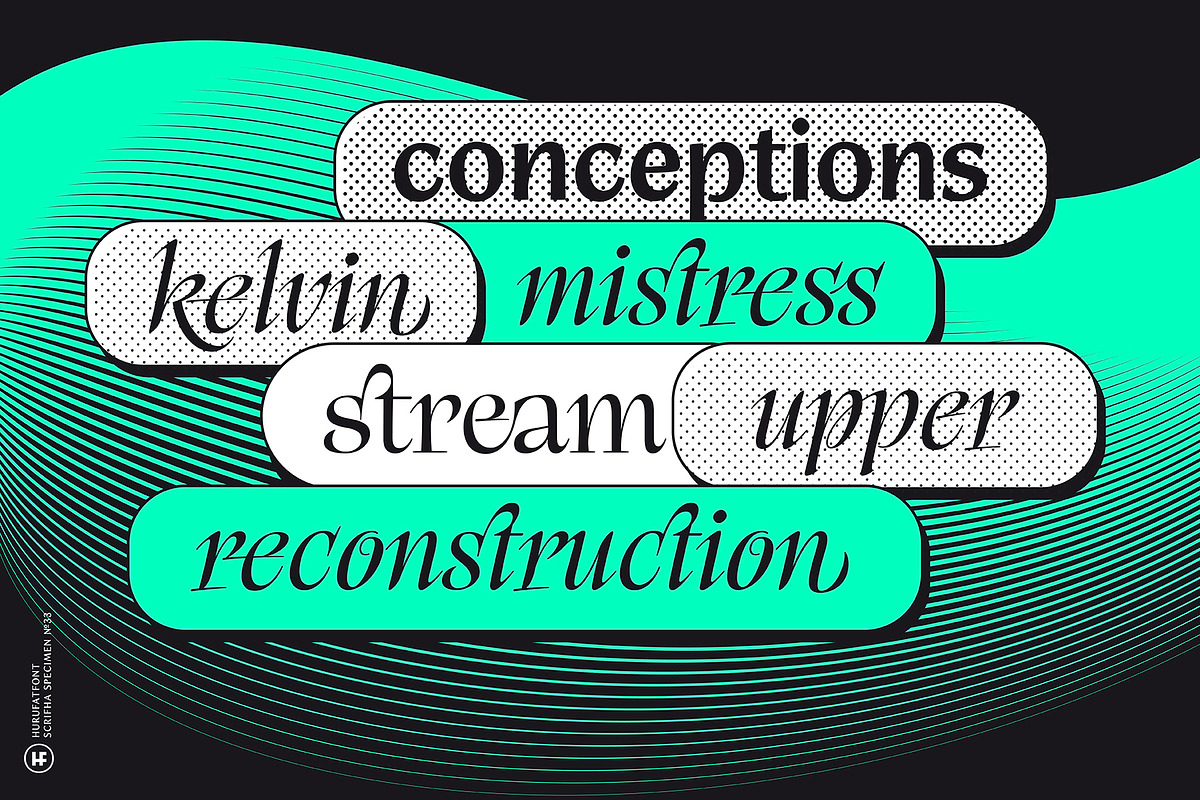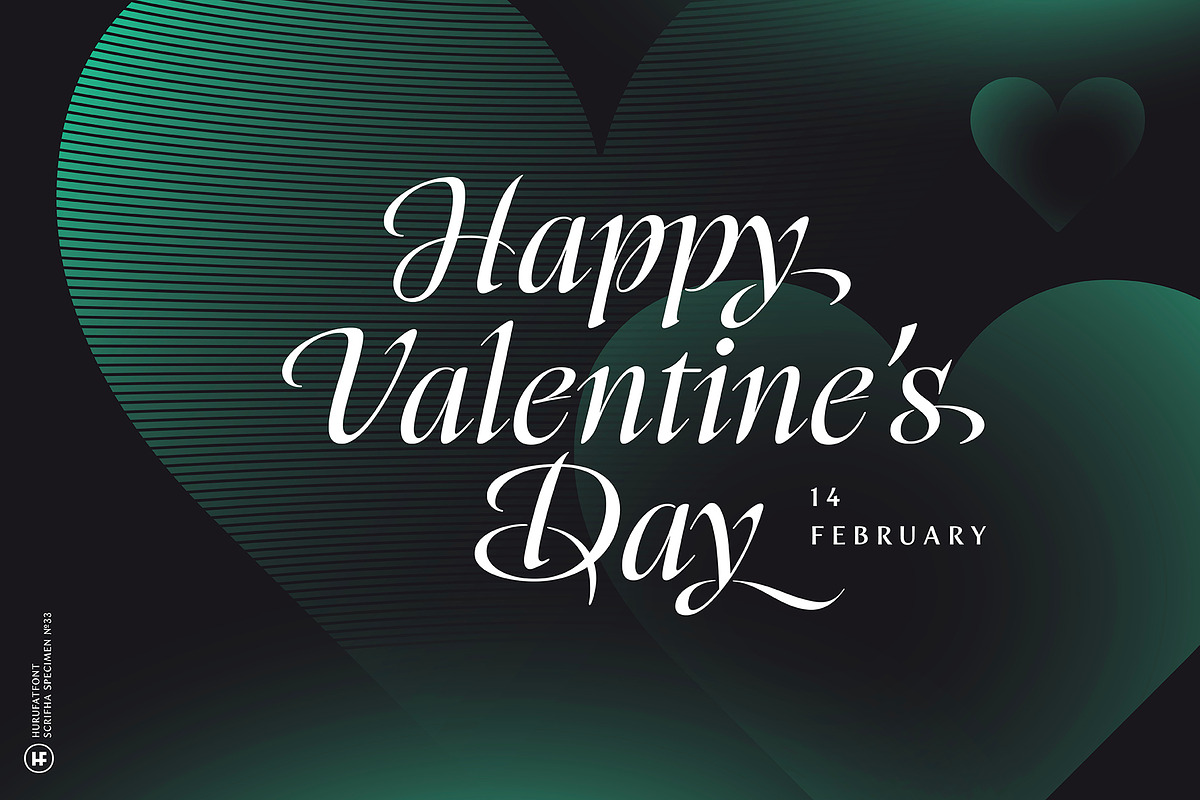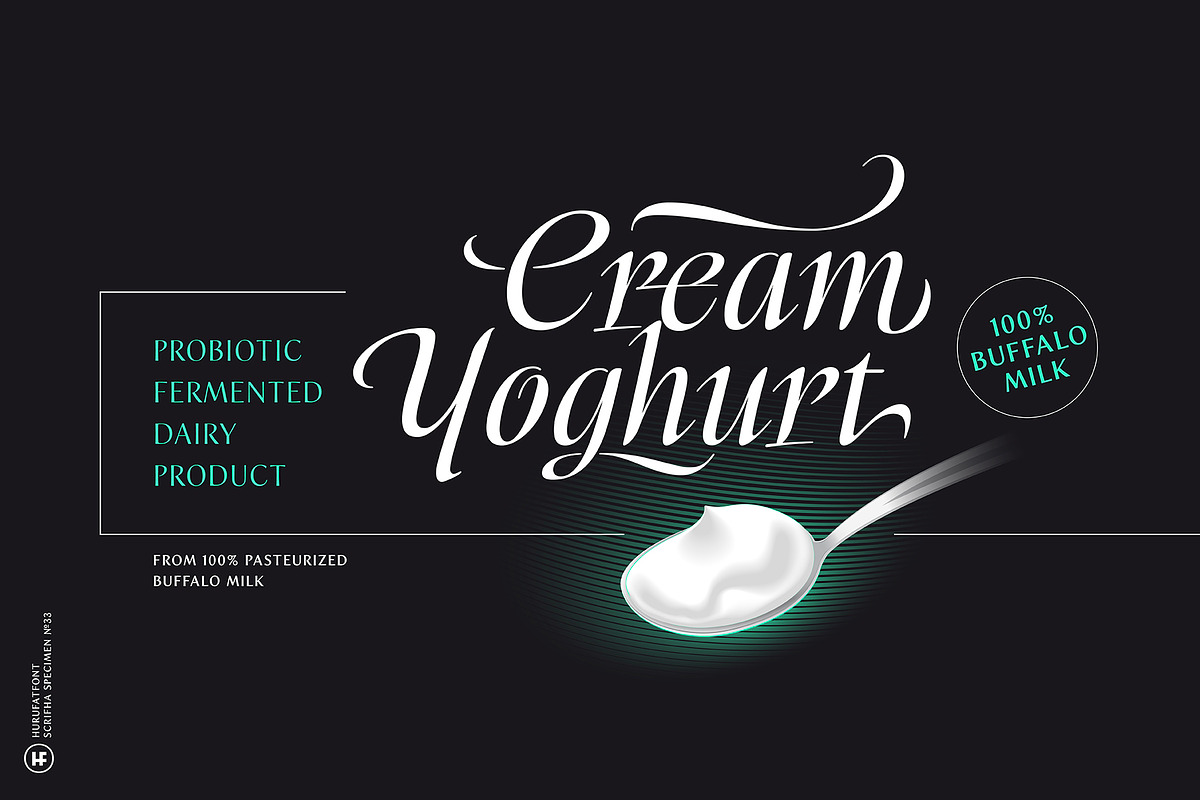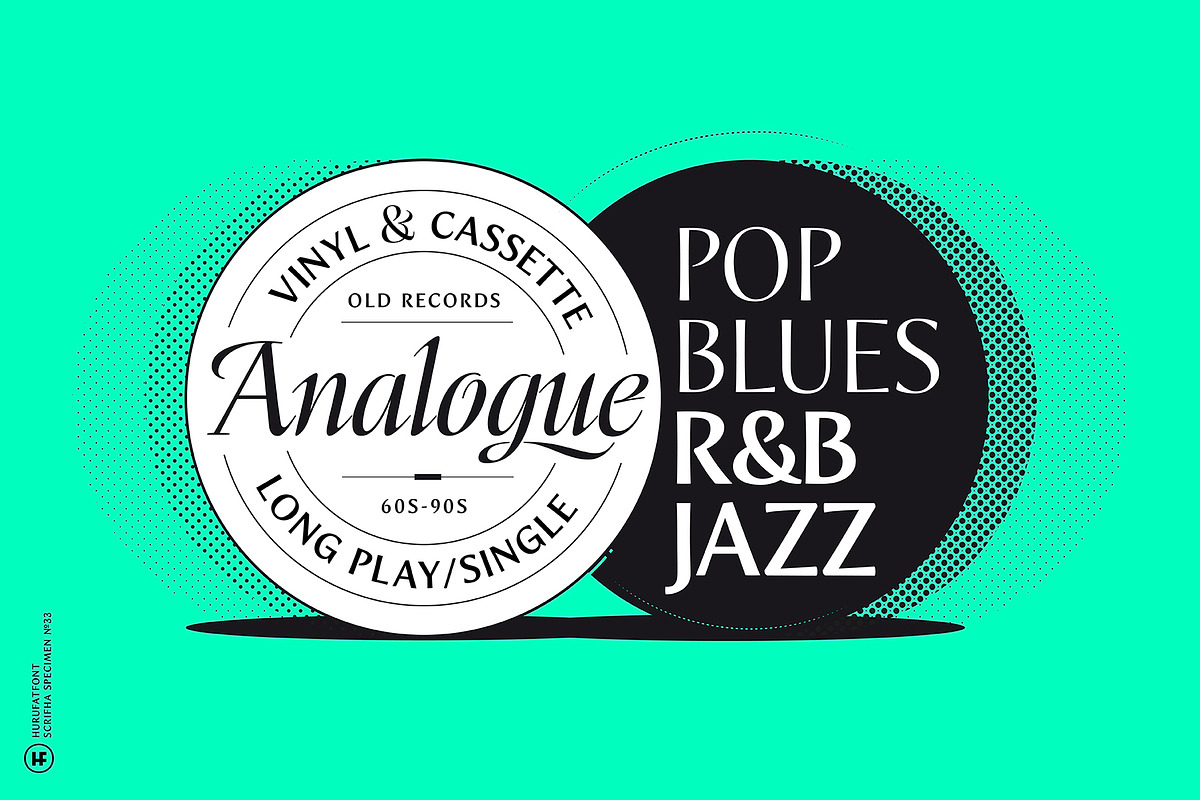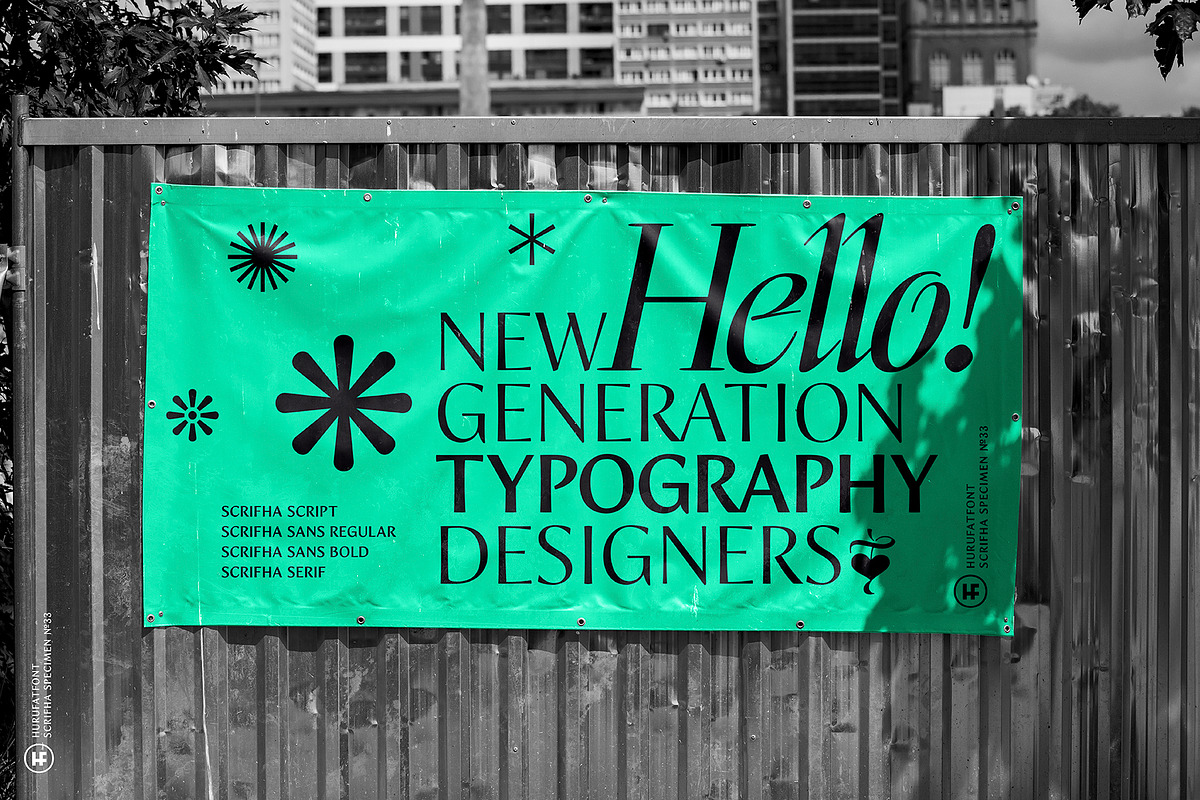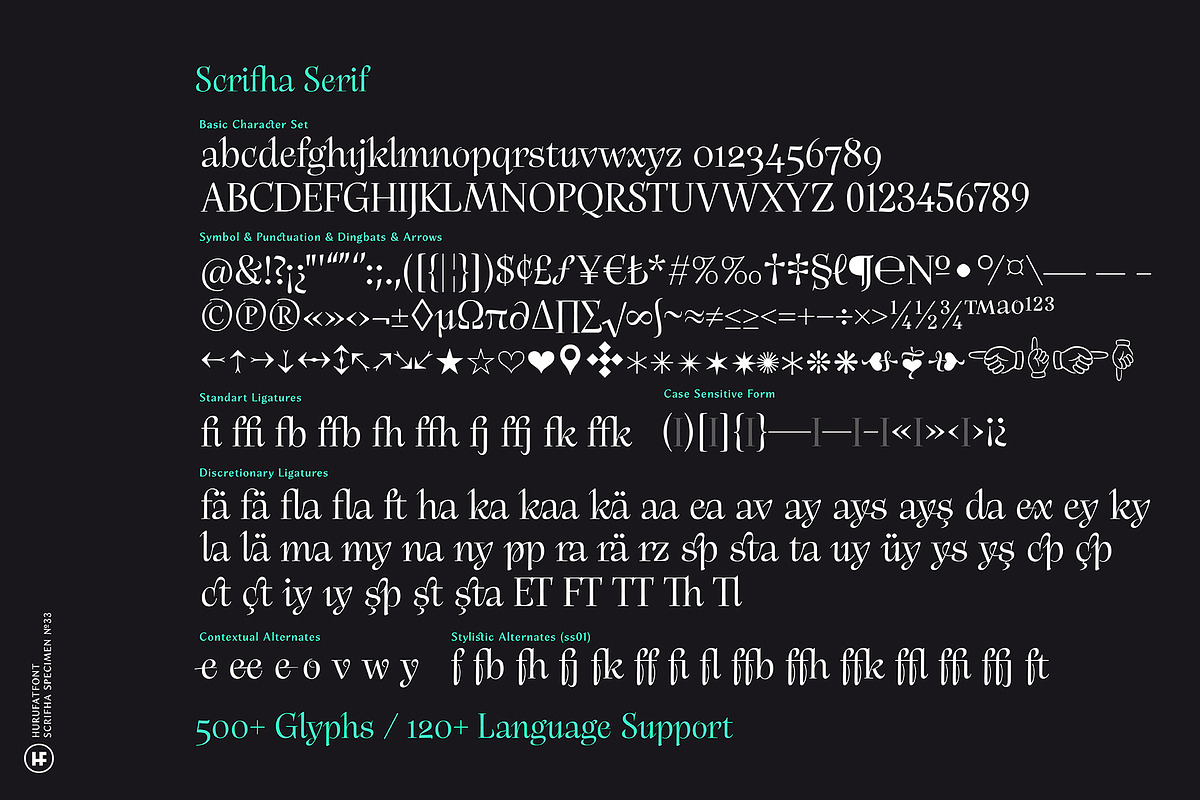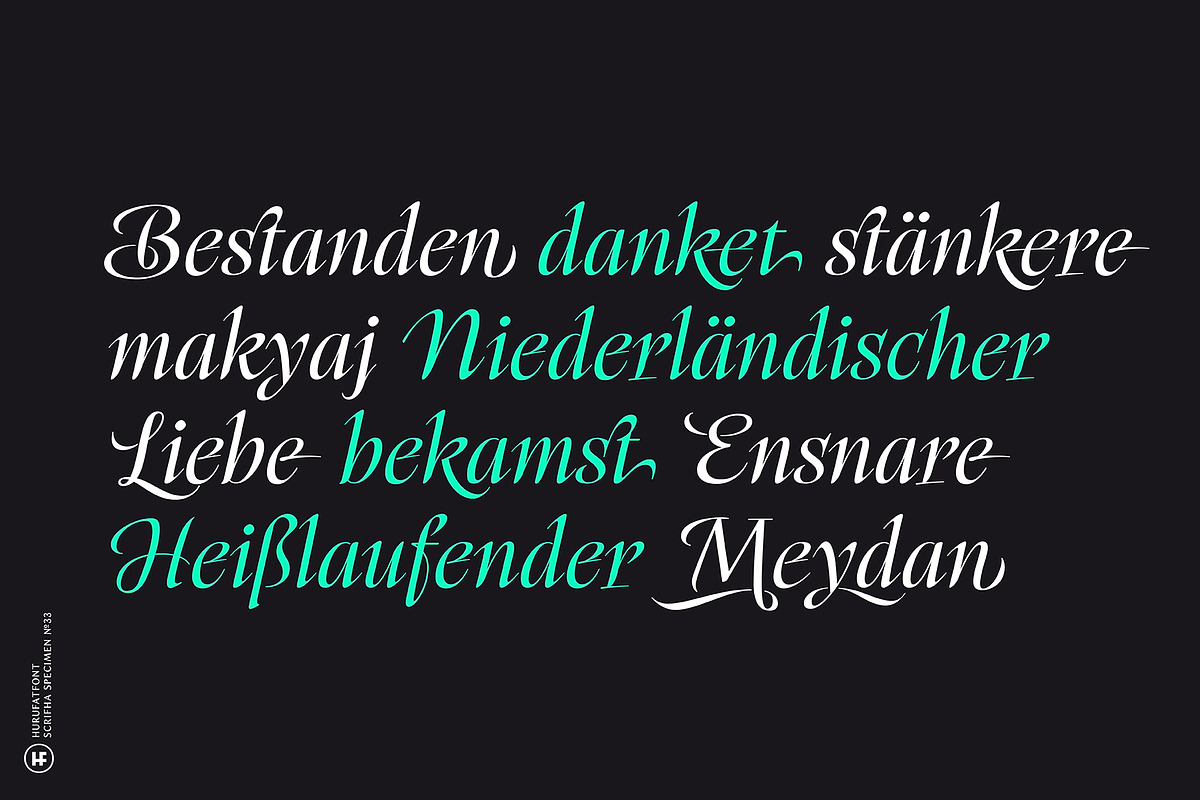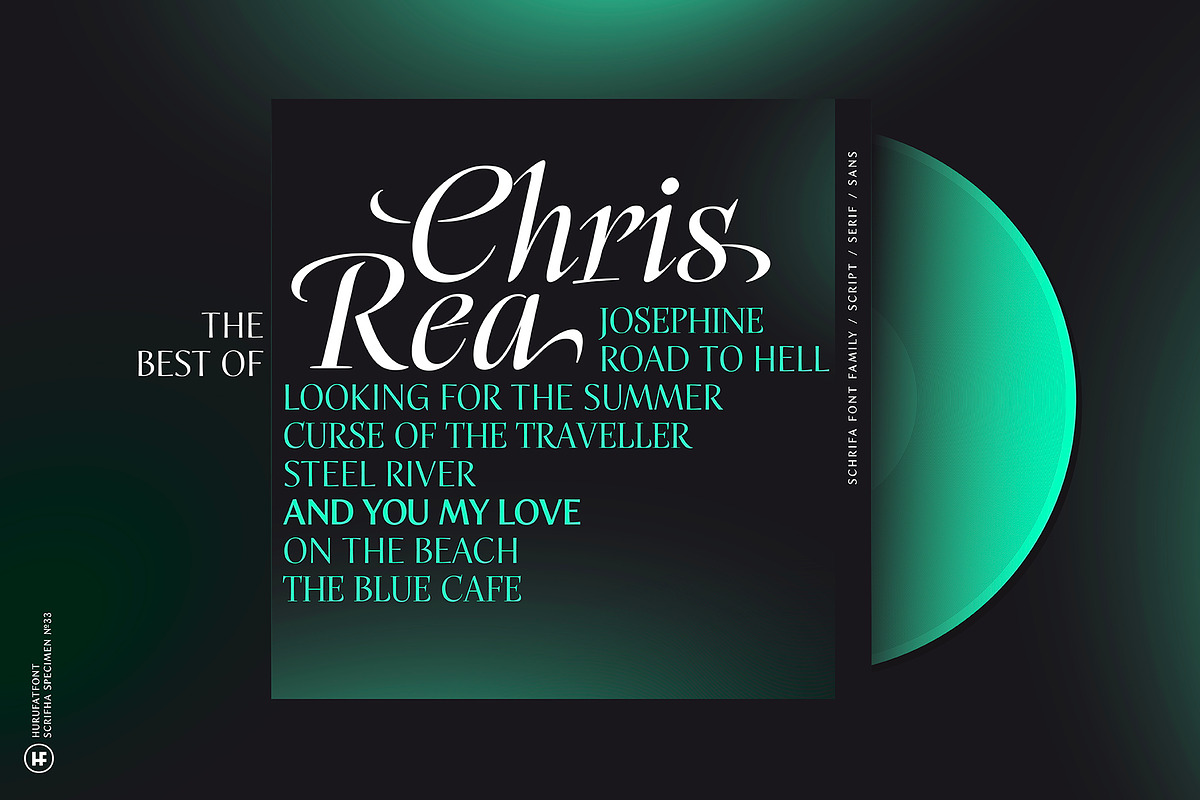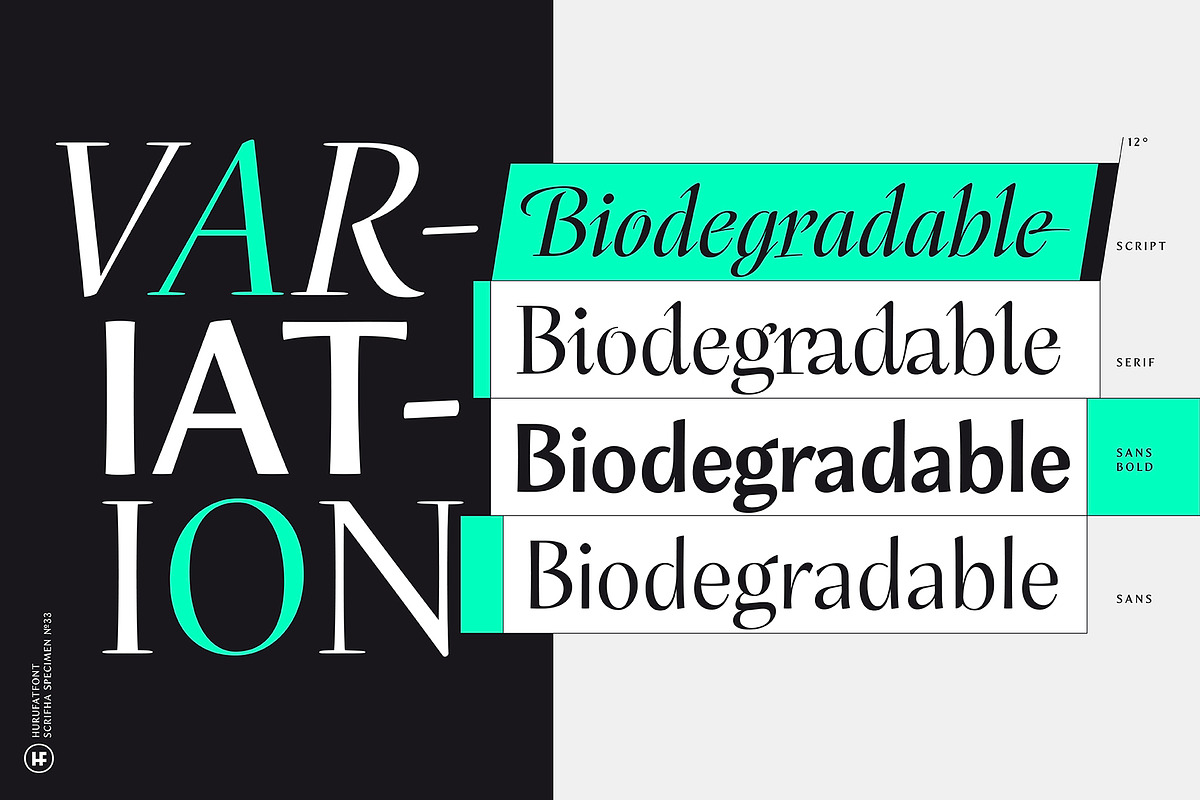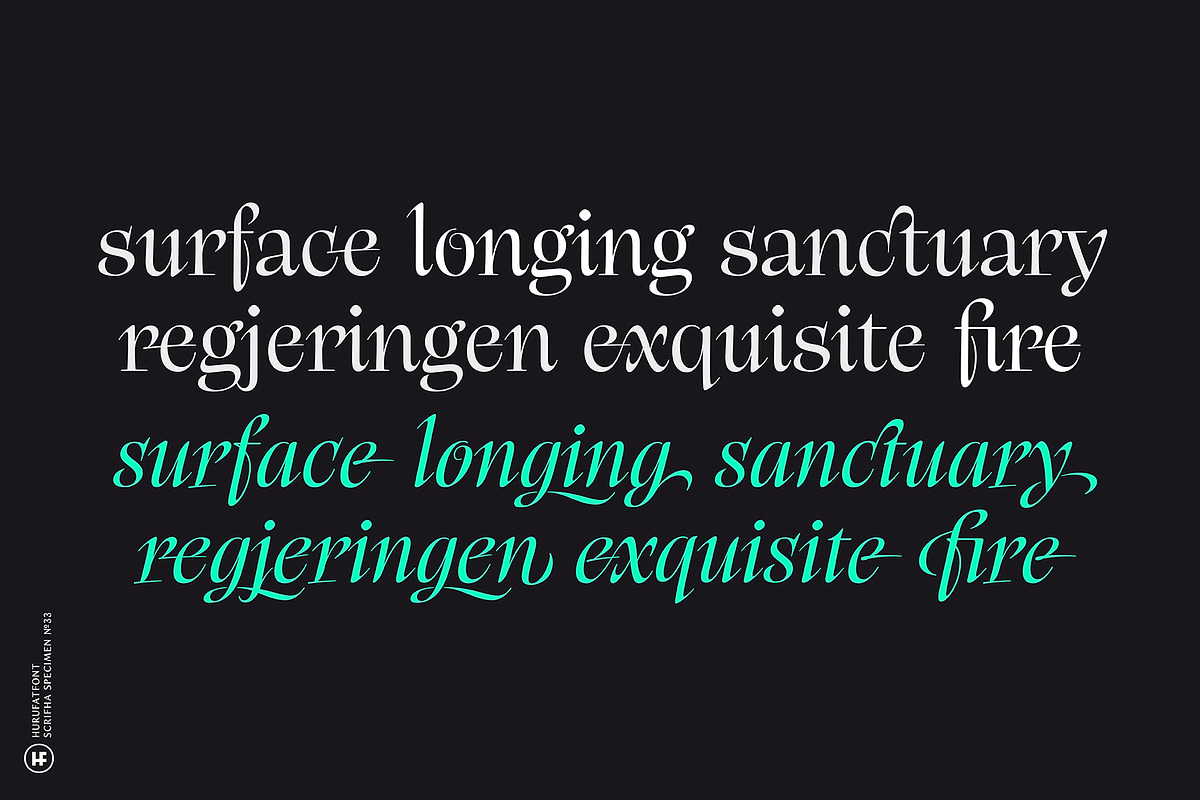
Scrifha Display Font Family
Scrifha is a heading font consisting of four styles. The leading actor is Scrifha Script. The other versions are designed as auxiliary. Ideal for new generation typography designs. It allows you to create effective headings thanks to its high contrast structure and rich opentype features.